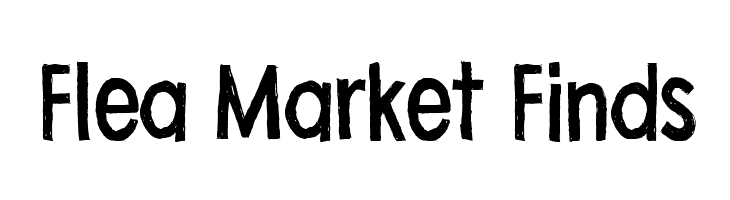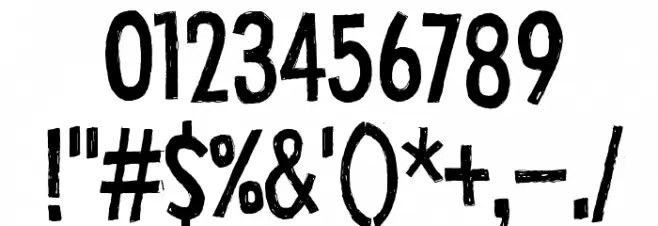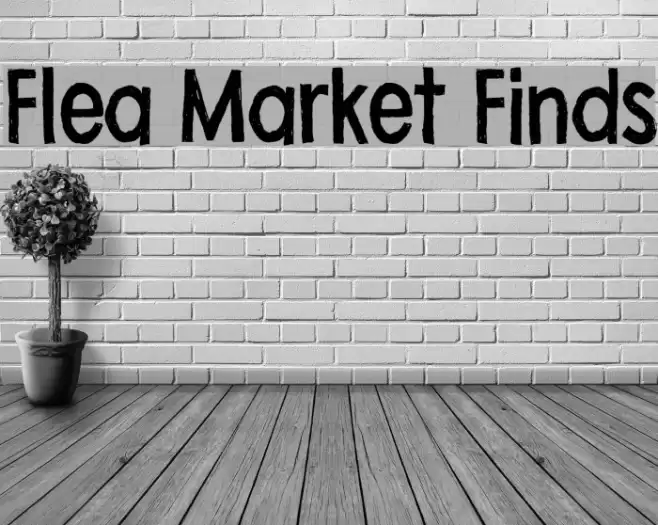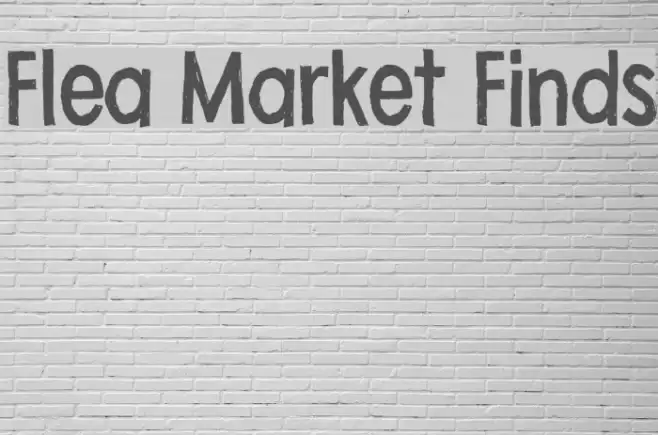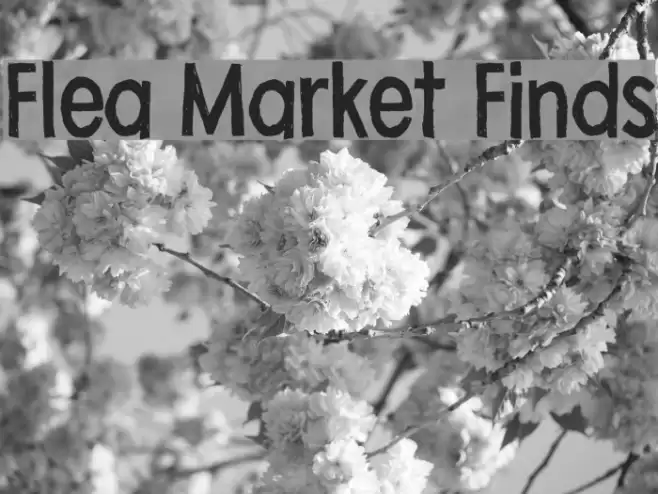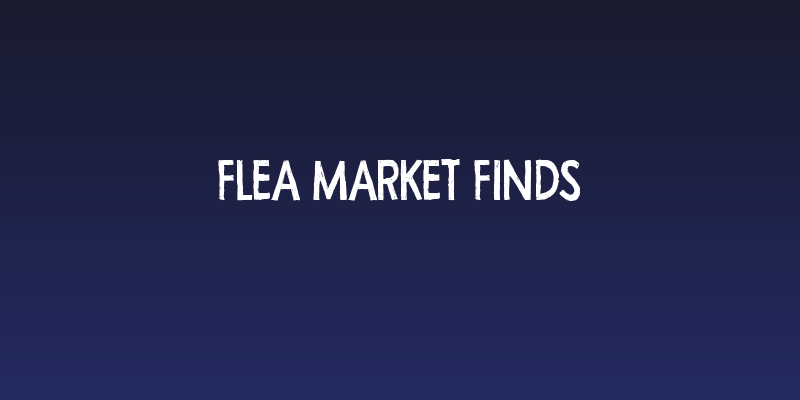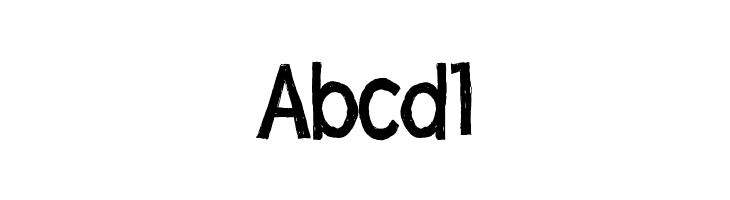
Flea Market Finds Font
Flea Market Finds Description
This font exudes a playful and handcrafted vibe, reminiscent of vintage flea market finds. The characters are bold and slightly irregular, giving them a hand-drawn appearance. The strokes are thick and consistent, with a rough texture that adds to the rustic charm. The uppercase and lowercase letters maintain a uniform height, while the numbers and special characters blend seamlessly with the overall style. This font is perfect for projects that require a touch of nostalgia and personality, such as retro-themed designs, craft projects, or branding for artisanal products.
Overall StyleVintage
Proposed ProjectsIdeal for retro-themed designs, craft projects, and artisanal branding.